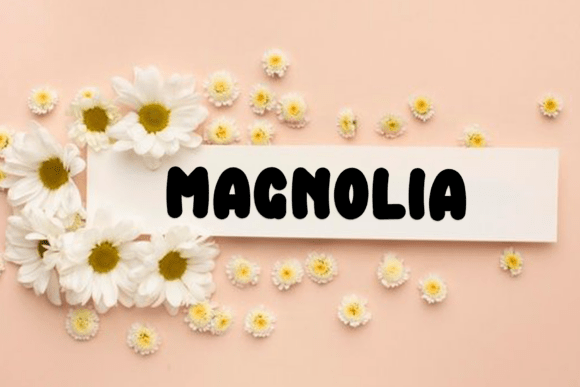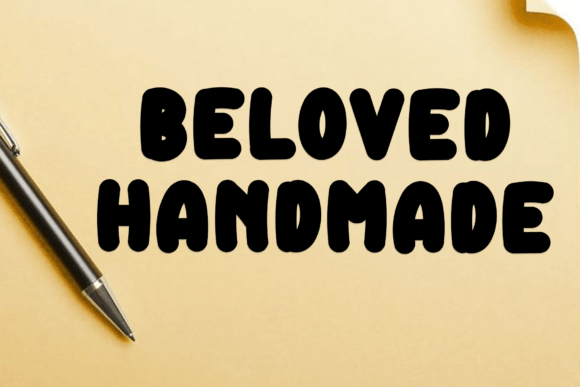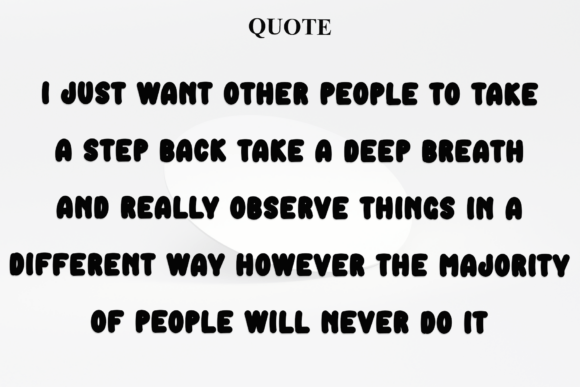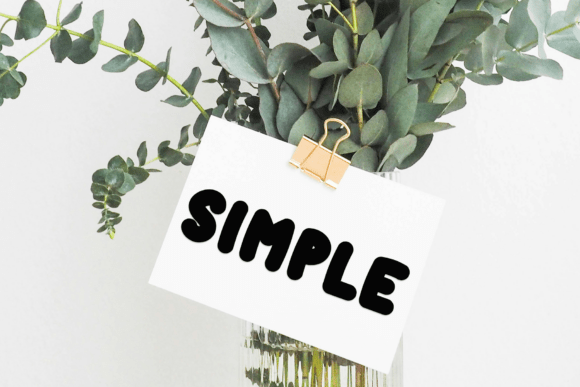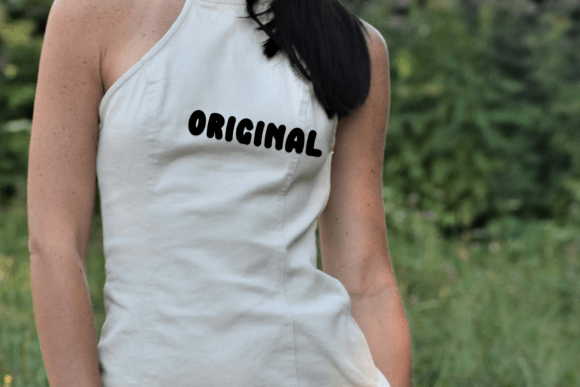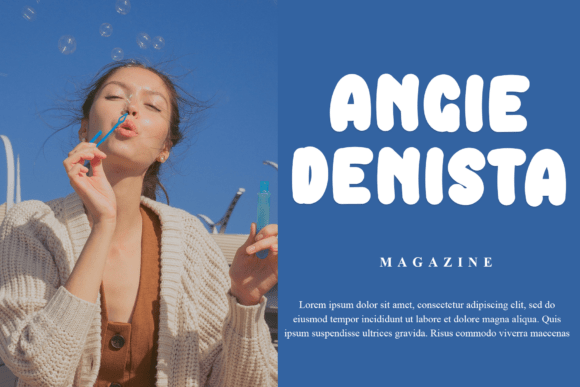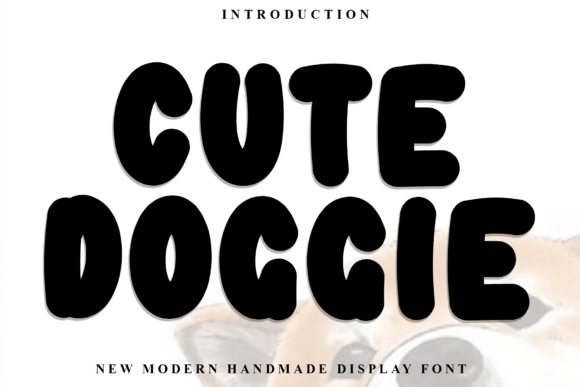
Unleash Your Playful Side with Cute Doggie Font
Are you looking for a typeface that exudes joy, friendliness, and playfulness? Look no further than the Cute Doggie font, a charming and bubbly handmade display typeface that’s sure to capture the hearts of designers and audiences alike. This delightful font features chunky, soft letterforms that feel as warm and approachable as a favorite pet, making it the perfect choice for a wide range of design projects.
The Perfect Choice for Playful Designs
The Cute Doggie font is ideal for designers who want to add a touch of whimsy and personality to their work. Its thick, rounded strokes make it highly legible and impact-heavy, even in busy designs. This font is perfect for children’s products, pet shop branding, or cheerful social media campaigns. Imagine using it to create a fun logo for a boutique pet bakery, a nursery art print, or a birthday card – the possibilities are endless!
Adding Handmade Charm to Your Designs
One of the standout features of the Cute Doggie font is its handmade charm. Each letterform is carefully crafted to feel warm and approachable, giving your designs a unique and personal touch. This font is perfect for designers who want to create work that feels authentic and engaging. Whether you’re designing for a client or working on a personal project, the Cute Doggie font is sure to bring a smile to people’s faces.
Pairing with Vibrant Colors and Playful Illustrations
To enhance the energy of the Cute Doggie font, try pairing it with a vibrant, pastel color palette or playful illustrations. The font’s chunky, soft letterforms provide a beautiful contrast to delicate illustrations or intricate patterns. For example, you could use the Cute Doggie font to create a cheerful poster for a school event or a fun design for a toy packaging. The possibilities are endless, and the results are sure to be delightful.
Use Cases for the Cute Doggie Font
The Cute Doggie font is versatile and can be used for a wide range of design projects, including:
- Children’s products: Create fun and engaging designs for kids with the Cute Doggie font.
- Pet shop branding: Use the Cute Doggie font to create a logo or branding materials for a pet shop or pet-related business.
- Social media campaigns: Add a touch of playfulness to your social media campaigns with the Cute Doggie font.
- Birthday cards and nursery art prints: Create personalized and unique designs for special occasions.
- Toy packaging and school event posters: Use the Cute Doggie font to create fun and engaging designs for kids.
Why Choose the Cute Doggie Font?
So why choose the Cute Doggie font for your next design project? Here are just a few reasons:
- Unique and playful design: The Cute Doggie font features a unique and playful design that’s sure to capture attention.
- Handmade charm: Each letterform is carefully crafted to feel warm and approachable, giving your designs a unique and personal touch.
- Highly legible: The font’s thick, rounded strokes make it highly legible and impact-heavy, even in busy designs.
- Versatile: The Cute Doggie font can be used for a wide range of design projects, from children’s products to social media campaigns.
In conclusion, the Cute Doggie font is a charming and bubbly handmade display typeface that’s perfect for designers who want to add a touch of playfulness and personality to their work. With its chunky, soft letterforms and handmade charm, this font is sure to capture the hearts of audiences and make your designs stand out. Whether you’re designing for a client or working on a personal project, the Cute Doggie font is a great choice for creating engaging and delightful designs.
So why wait? Unleash your playful side with the Cute Doggie font and start creating designs that make people smile!